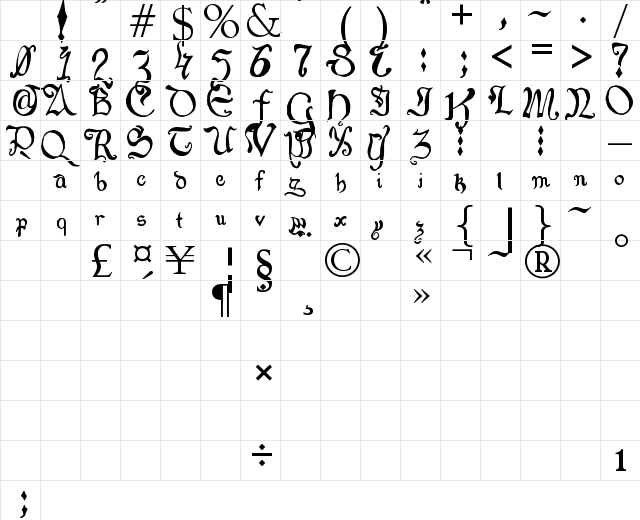
Complete Goldilocks_Reprised Regular glyph index. Displaying only characters natively supported by Goldilocks_Reprised Regular font.
Goldilocks_Reprised is a composed and adaptable typeface that performs quietly and consistently across a wide range of design contexts.